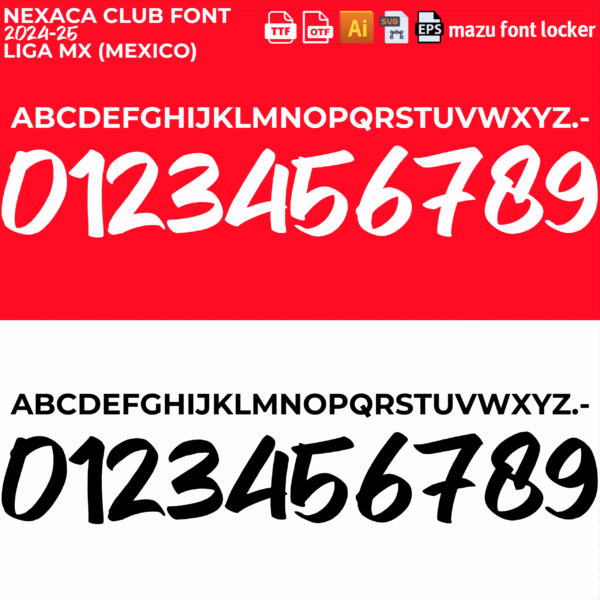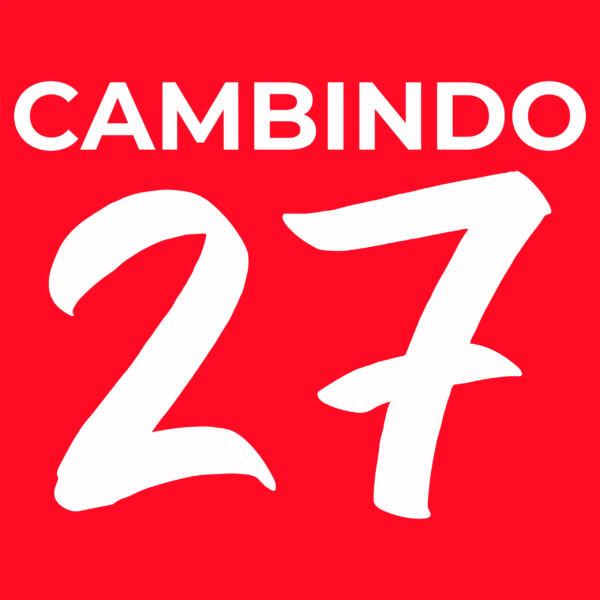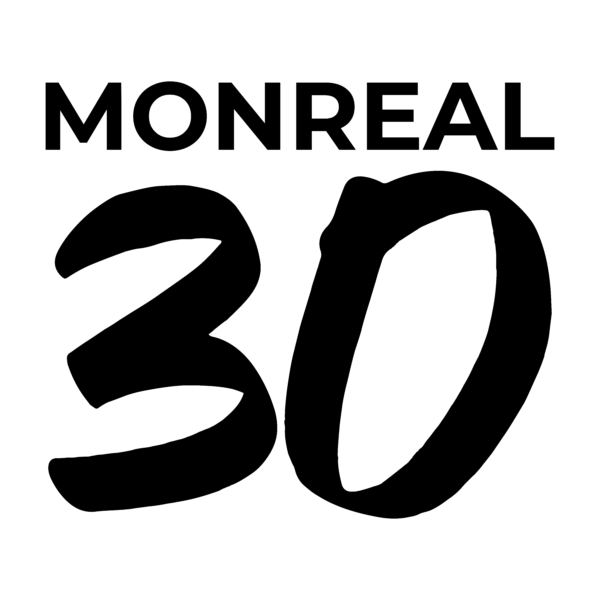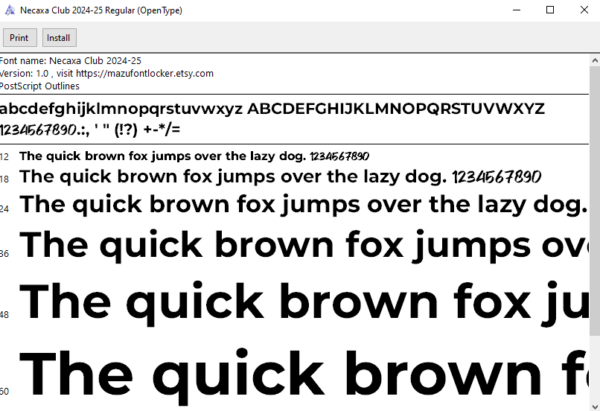
Necaxa Club 2024-2025 Font Vector – Legendary Los Rayos Masterpiece
This font captures the razor-sharp, thunderous lettering that embodies Necaxa’s proud club identity, rich Mexican football heritage, iconic red-and-white tradition, and unstoppable fighting spirit — delivering premium quality and explosive energy for jersey mockups, football graphics, sports branding, and fan creations.
Necaxa Club 2024-2025 Font Vector – Los Rayos Heritage Typeface
The Necaxa Club 2024-2025 Font Vector is a premium typeface that accurately recreates the official match lettering worn by Club Necaxa during their 2024-2025 campaign. This high-quality vector font kit captures the bold, clean, and instantly recognizable typography that perfectly complements the club’s iconic red and white identity.
Designed for professional designers, football enthusiasts, and passionate Necaxa supporters, the Necaxa Club 2024-2025 Font Vector delivers exceptional authenticity for creating realistic jersey mockups, football merchandise, social media graphics, match posters, and custom fan artwork. Every character has been carefully recreated to match the powerful and precise visual style of one of Mexico’s most historic football clubs.
Why Choose Necaxa Club 2024-2025 Font Vector
This font stands out thanks to its precise vector construction and authentic club-inspired styling. Every letter and numeral has been meticulously recreated to match the official shirt lettering used throughout the 2024-2025 season and associated campaigns. Whether you’re producing professional kit templates or creating eye-catching football content, the Necaxa Club 2024-2025 Font Vector delivers a genuine match-ready appearance inspired by the proud identity of Los Rayos.
The lettering featured in the Necaxa Club 2024-2025 Font Vector combines clean geometric lines with powerful modern proportions. The result is a premium and highly readable typeface that reflects Club Necaxa’s fighting spirit, attacking football, resilience, and proud Mexican heritage.
- Complete uppercase A–Z alphabet and numbers 0–9 in authentic Necaxa Club 2024-2025 style
- Create authentic Necaxa Club 2024-2025 jersey mockups
- Produce custom Club Necaxa-inspired merchandise and fan projects
- Recreate the distinctive look of Necaxa player names and squad numbers for creative projects